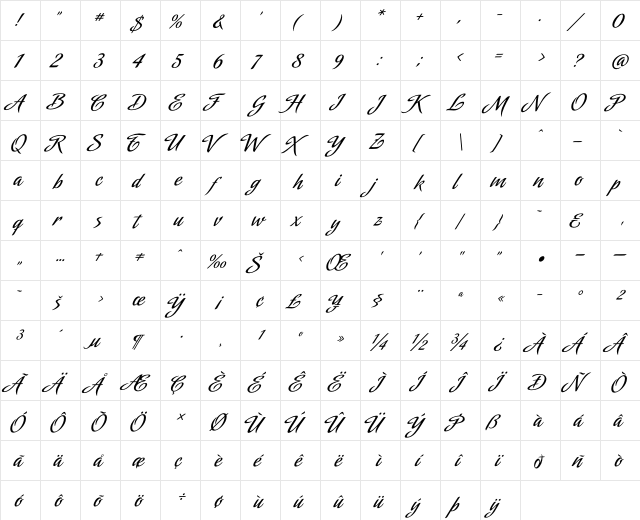
Amorinda Regular
Design Context for Amorinda Typeface
Amorinda is a composed and adaptable typeface that performs quietly and consistently across a wide range of design contexts.